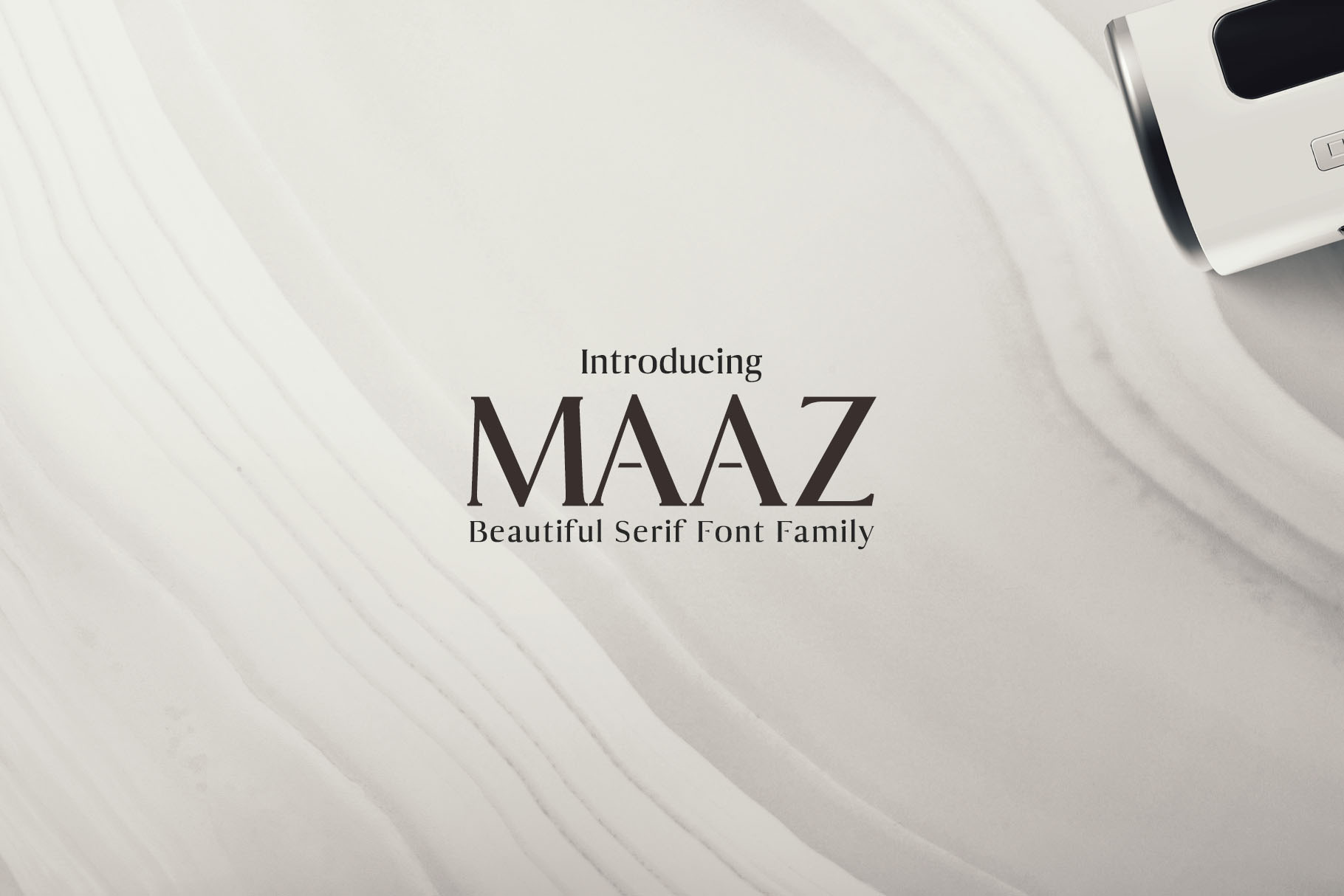
Maaz Serif Fonts Family Pack
Maaz is the perfect typeface to create sleek and elegant logo designs and headlines and. It pairs well with both script and sans-serif fonts and features multiple weights.
- Font Weight: Regular, Light, Medium, Bold and Outline
Maaz Font Features:
- Uppercase Multilingual Letters
- Lowercase Multilingual Letters
- Non English Characters ( Latin Supplement + Latin Extended A)